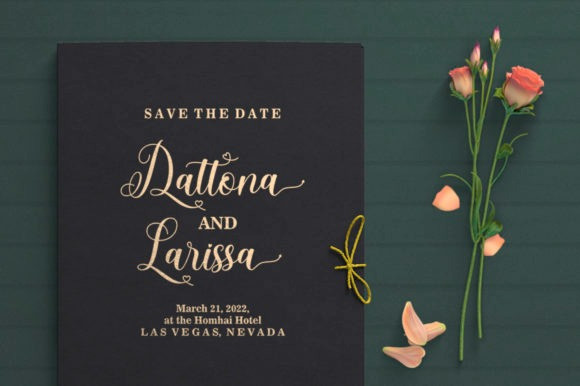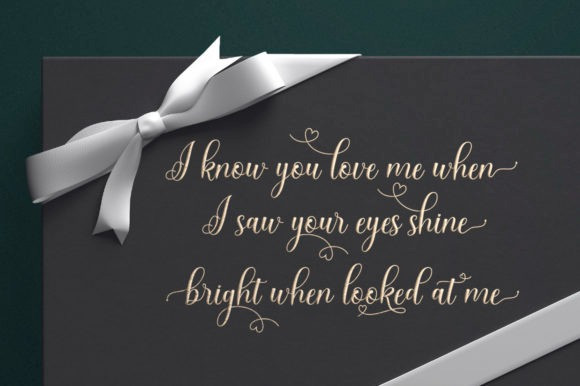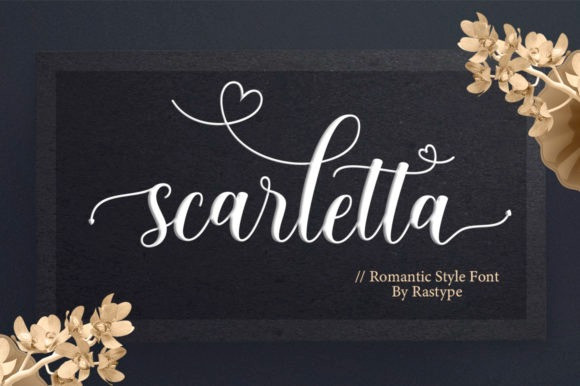
Scarletta Font
Scarletta Calligraphy Font is a romantic and sweet calligraphy font. It features an incredibly classic style, while still keeping a friendly feel. Scarletta is the perfect font for making original and outstanding designs.